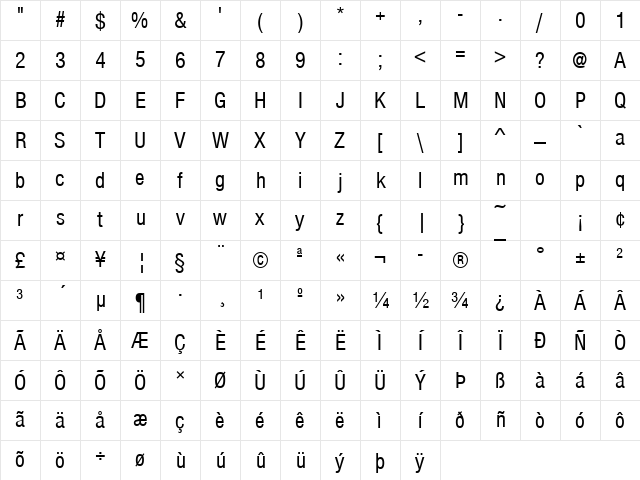
Complete NimbusSanTCon Regular glyph index. Displaying only characters natively supported by NimbusSanTCon Regular font.
NimbusSanTCon is a composed and adaptable typeface that performs quietly and consistently across a wide range of design contexts.
Pro Tip: Use NimbusSanTCon in both headline and body roles to test its range before committing to a single application.